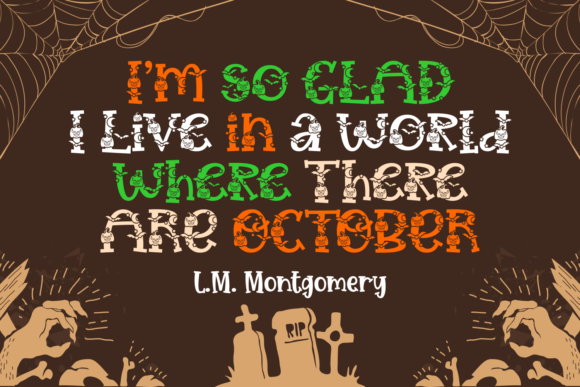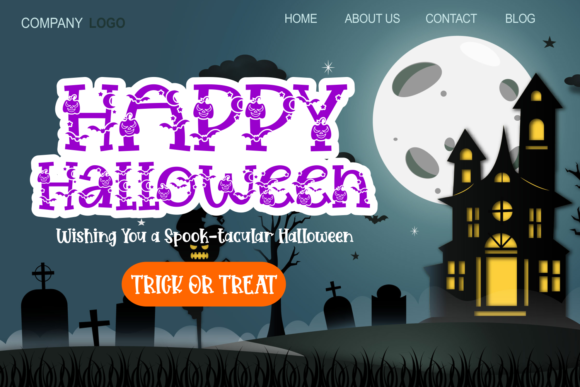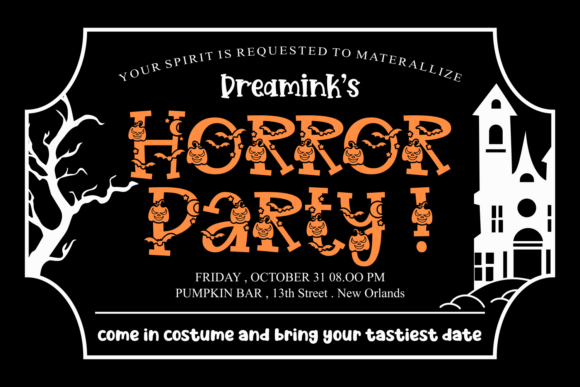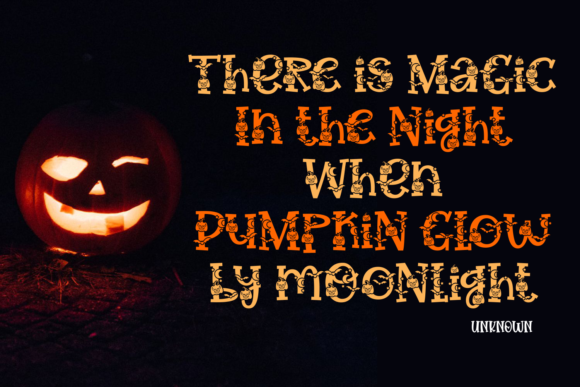
Unleash the Creepiness: Discover the Always Creepy Font
Are you a designer or crafter looking to add a touch of spookiness to your creations? Look no further than the Always Creepy font. This cool and spooky decorative font is sure to elevate any project, from Halloween-themed designs to creepy crafts. In this article, we’ll dive into the world of Always Creepy and explore its features, benefits, and uses.
What is Always Creepy Font?
Always Creepy is a unique and eye-catching decorative font designed to add a touch of creepiness to any project. Its irregular and distressed letterforms give it a haunting and eerie feel, perfect for designers and crafters who want to create spooky and attention-grabbing designs.
Key Features of Always Creepy Font
- Unique and Irregular Letterforms: Always Creepy features irregular and distressed letterforms that give it a creepy and eerie feel.
- High-Quality Design: The font is designed with high-quality and precise craftsmanship, ensuring that it looks great in any size or resolution.
- Multilingual Support: Always Creepy supports multiple languages, making it a versatile font for designers and crafters worldwide.
- Easily Customizable: The font can be easily customized to fit your design needs, from changing the color to adjusting the spacing.
Benefits of Using Always Creepy Font
So, why should you use Always Creepy in your designs? Here are just a few benefits:
- Adds a Touch of Spookiness: Always Creepy is perfect for designers and crafters who want to add a touch of spookiness to their creations.
- Versatile: The font can be used in a variety of projects, from Halloween-themed designs to creepy crafts.
- Eye-Catching: The unique and irregular letterforms of Always Creepy are sure to grab attention and make your designs stand out.
Use Cases for Always Creepy Font
So, how can you use Always Creepy in your designs? Here are a few ideas:
- Halloween-themed Designs: Use Always Creepy to create spooky and attention-grabbing Halloween-themed designs, such as invitations, posters, and flyers.
- Creepy Crafts: Add a touch of creepiness to your crafts, such as scrapbooking, card-making, and DIY projects.
- Horror and Thriller Designs: Use Always Creepy to create designs for horror and thriller movies, books, and games.
- Gothic and Vintage Designs: The font’s distressed and irregular letterforms make it perfect for gothic and vintage-inspired designs.
Tips for Using Always Creepy Font
Here are a few tips for using Always Creepy in your designs:
- Experiment with Colors: Try pairing Always Creepy with different colors to create a unique and eye-catching design.
- Play with Spacing: Adjust the spacing between letters to create a more distressed or eerie effect.
- Combine with Other Fonts: Combine Always Creepy with other fonts to create a unique and interesting contrast.
In conclusion, Always Creepy is a cool and spooky decorative font that’s perfect for designers and crafters who want to add a touch of creepiness to their creations. With its unique and irregular letterforms, high-quality design, and multilingual support, Always Creepy is sure to elevate any project. Whether you’re creating Halloween-themed designs, creepy crafts, or horror and thriller designs, Always Creepy is an incredible asset to your font library.